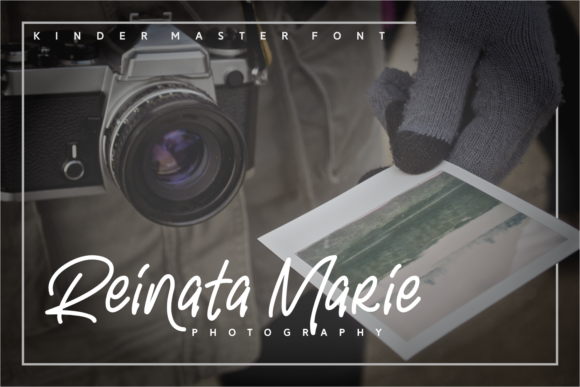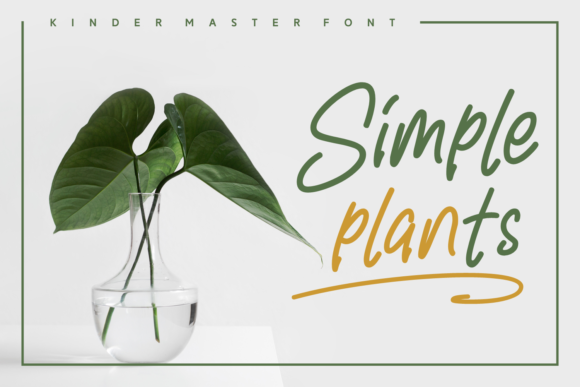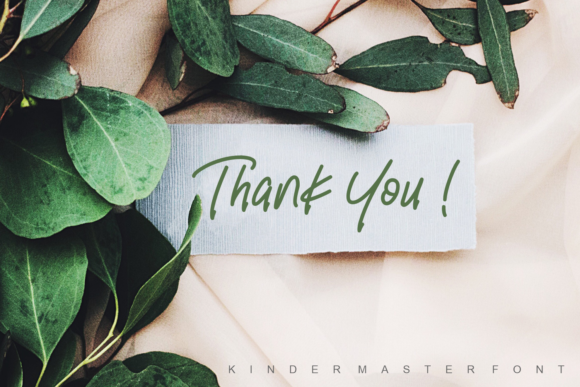
Introduction to Kinder Master Font
Kinder Master is a simple, yet elegant handwritten font with a casual twist.
Get inspired by its authentic charm .
Key Features of Kinder Master Font
Why Choose Kinder Master Font?
Kinder Master Font offers exceptional quality and versatility, making it a valuable addition to your design toolkit. Whether you’re creating for personal projects or commercial use, Kinder Master Font delivers professional results.